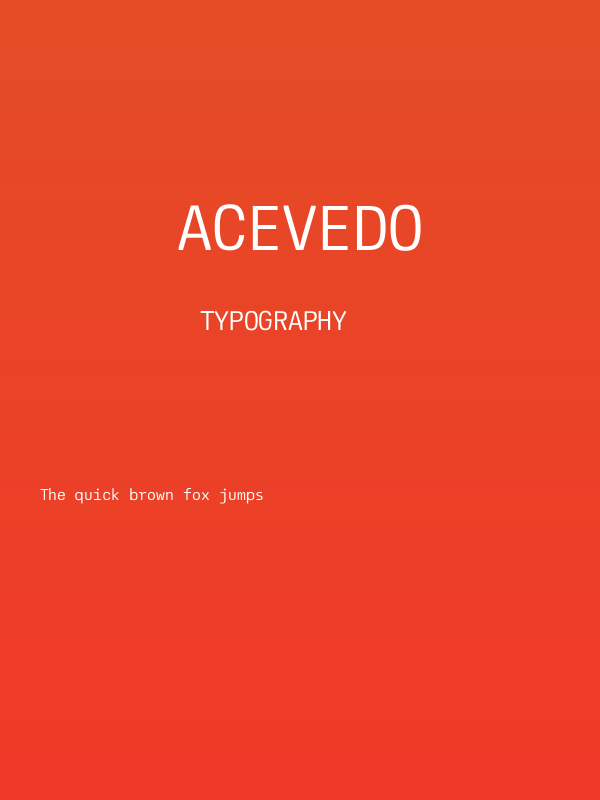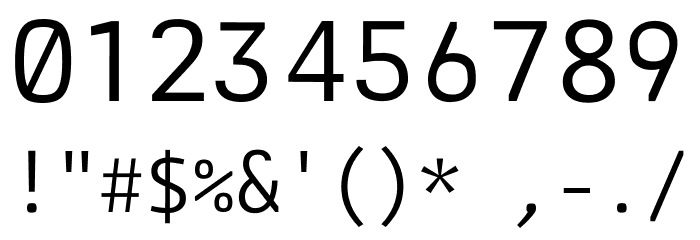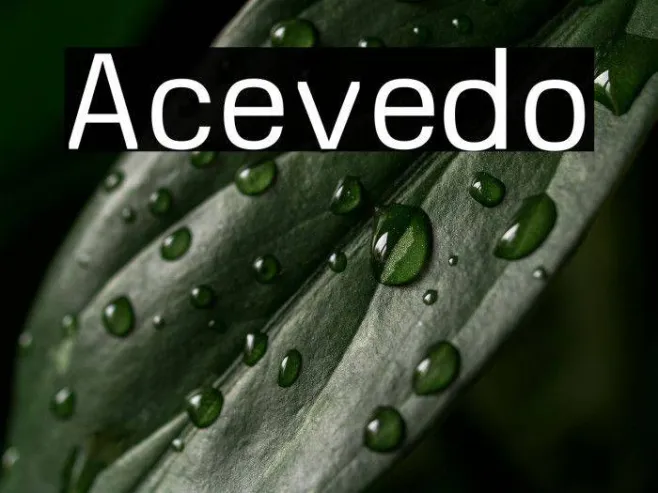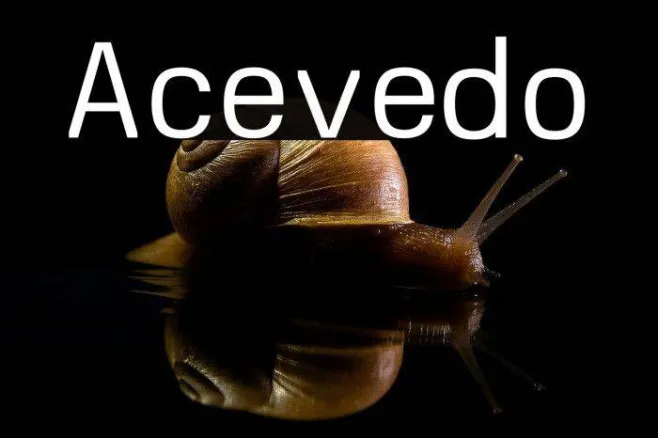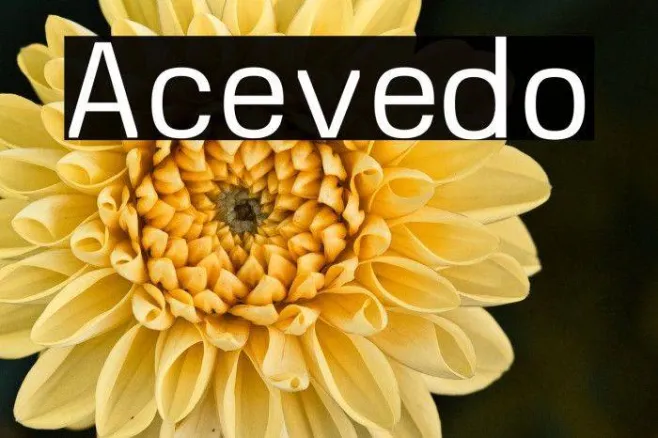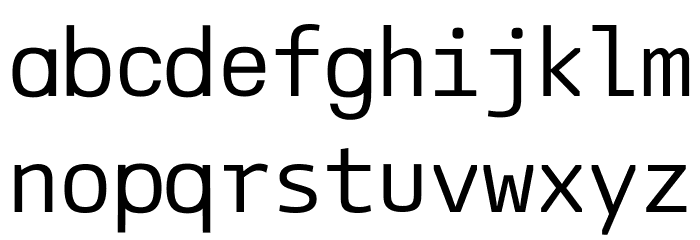
Acevedo Font
Acevedo Description
This font features a clean and modern sans-serif style with a geometric structure. The characters are evenly spaced, providing a balanced and harmonious appearance. The uppercase letters are bold and assertive, while the lowercase letters maintain a consistent height, contributing to readability. The numerals are clear and distinct, making them suitable for various applications. Special characters are well-defined, enhancing the font's versatility. Overall, this typeface exudes a contemporary and professional vibe, making it ideal for digital and print media.
| Proposed Projects | Ideal for branding, web design, digital interfaces, and editorial layouts. |